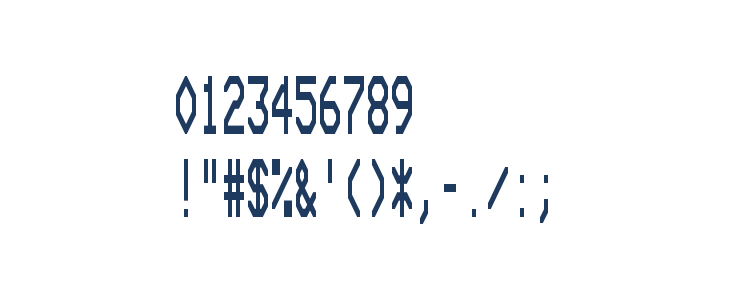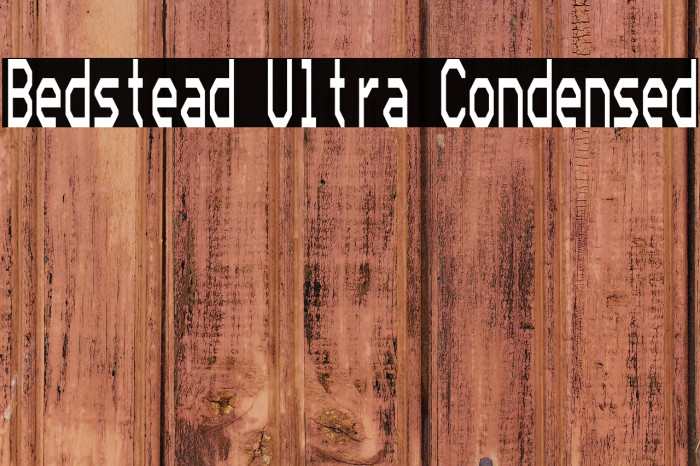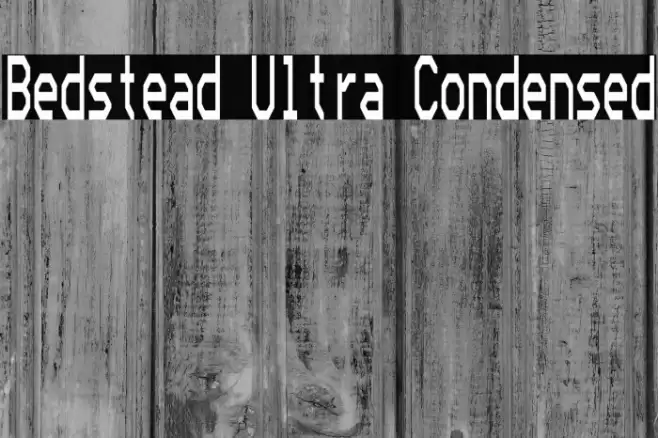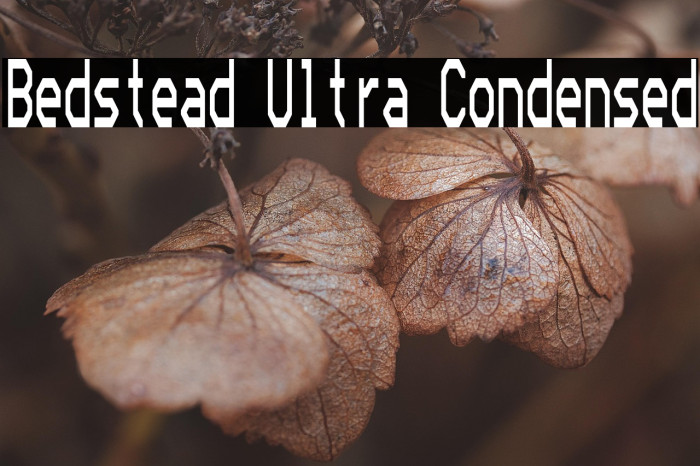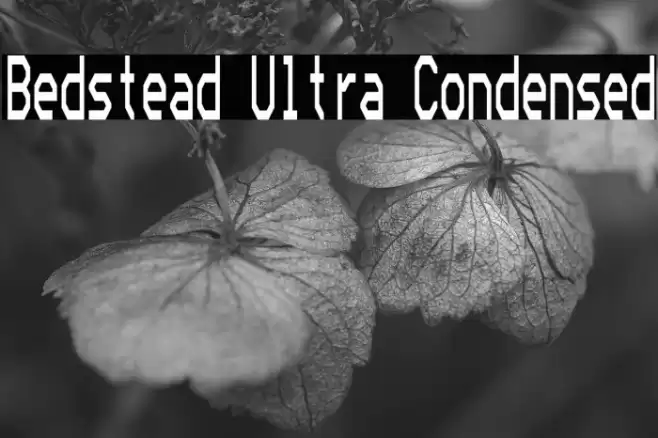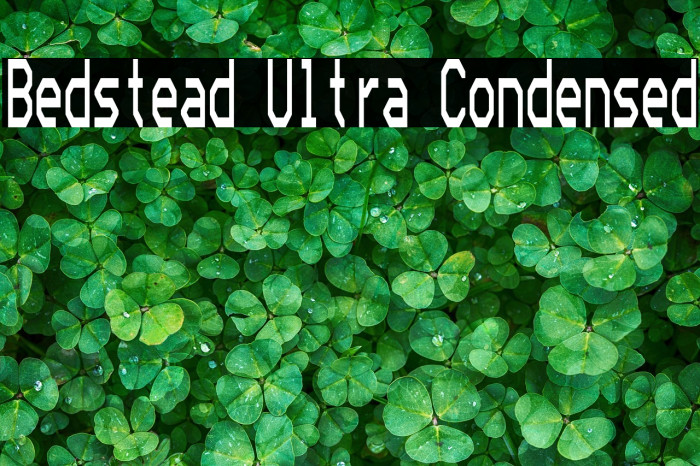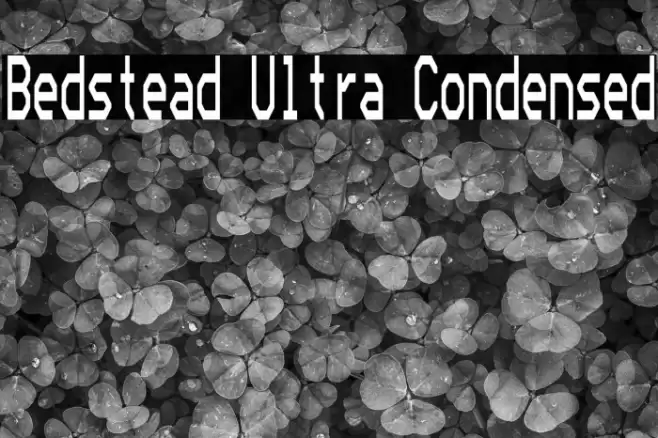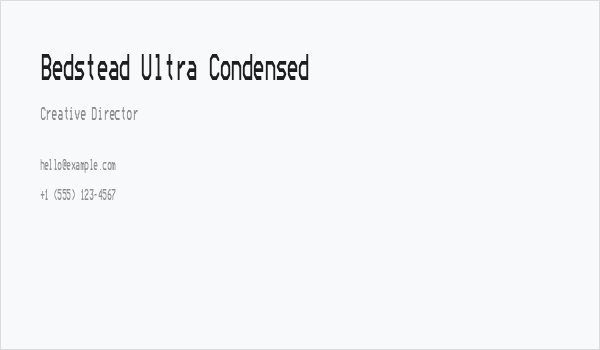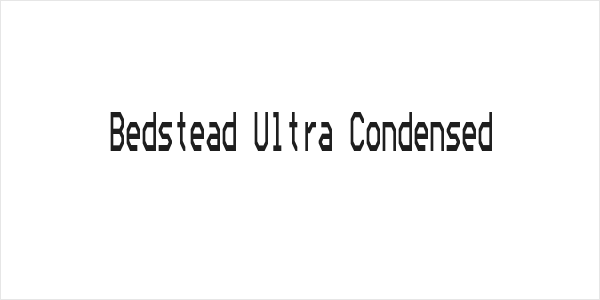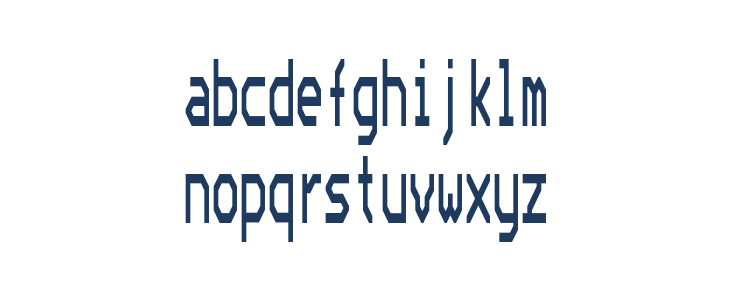
Bedstead Ultra Condensed Font
Bedstead Ultra Condensed Description
This font features a geometric and ultra-condensed style, characterized by its tall and narrow letterforms. The design is highly structured, with straight lines and sharp angles dominating the characters, giving it a modern and technical appearance. The uppercase and lowercase letters maintain a consistent width, contributing to its uniform look. The numerals and special characters follow the same design principles, ensuring a cohesive visual experience. This font's minimalistic approach makes it suitable for digital displays and environments where space is limited.
| Use Case | Digital displays, technical documentation |
| Proposed Projects | Ideal for digital interfaces, technical documentation, and environments where space is at a premium. |